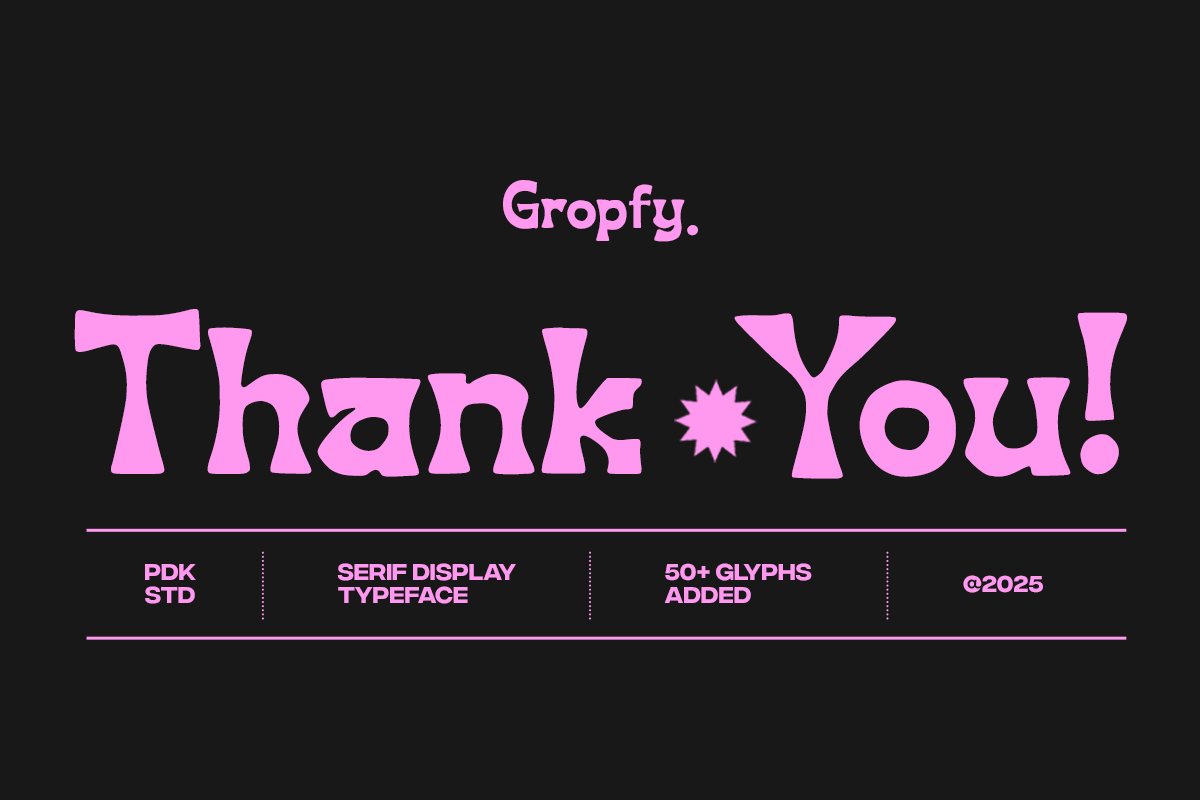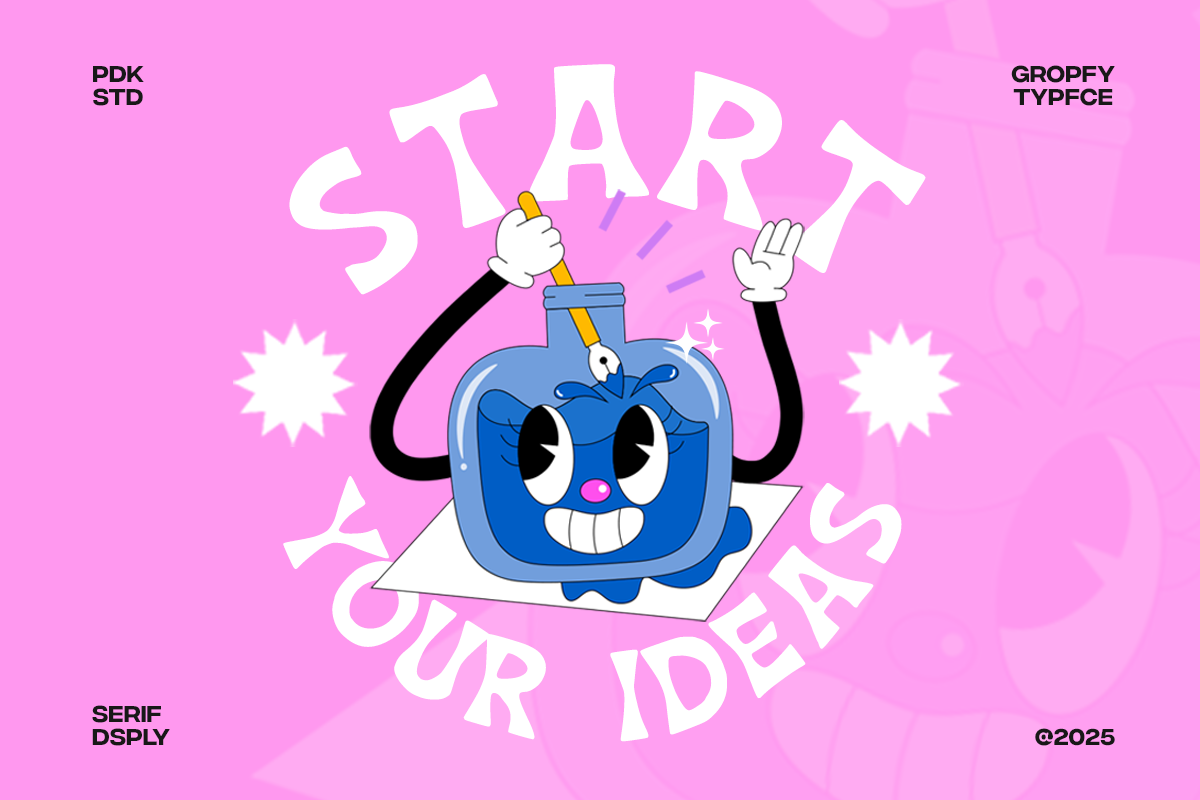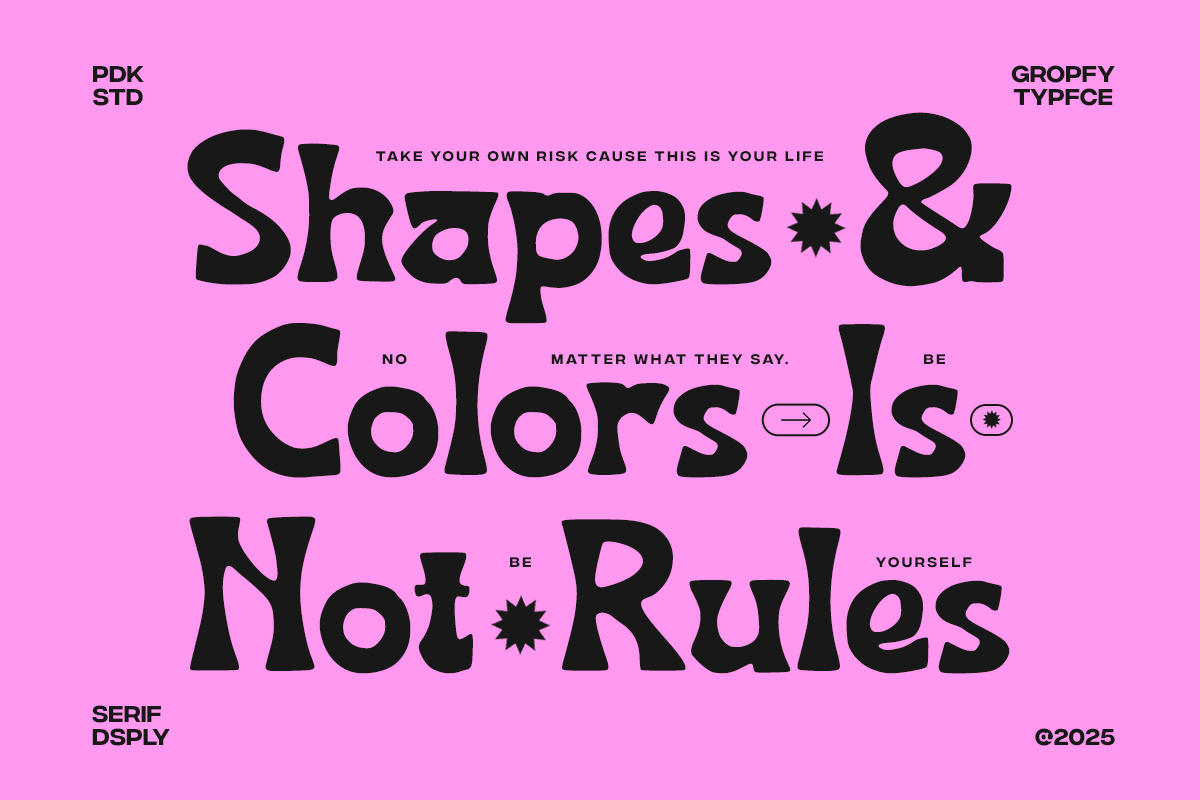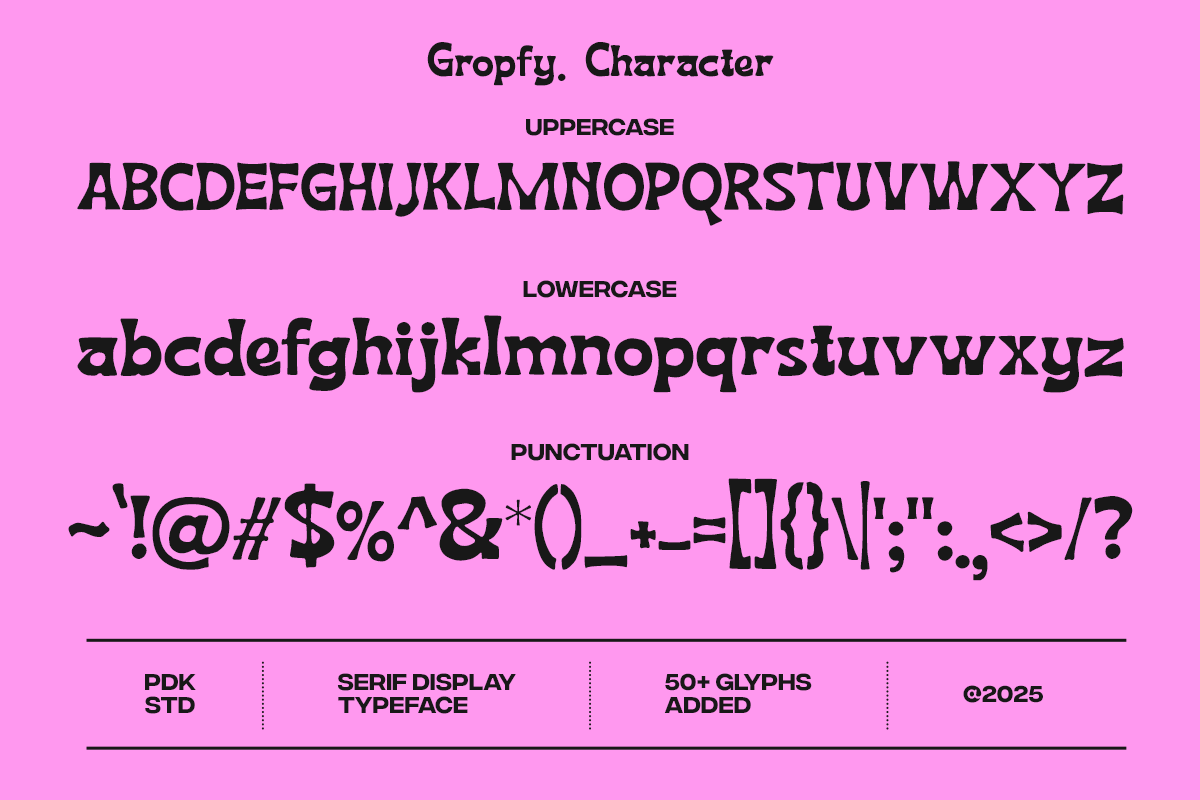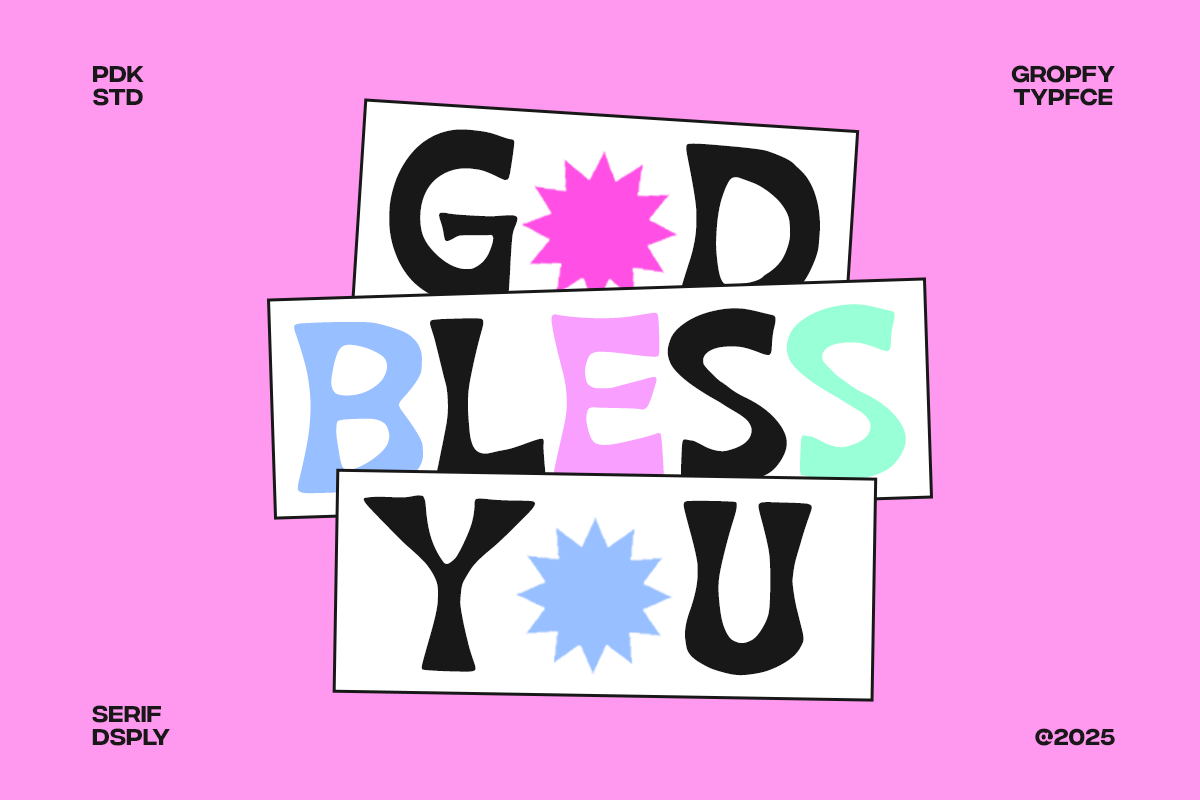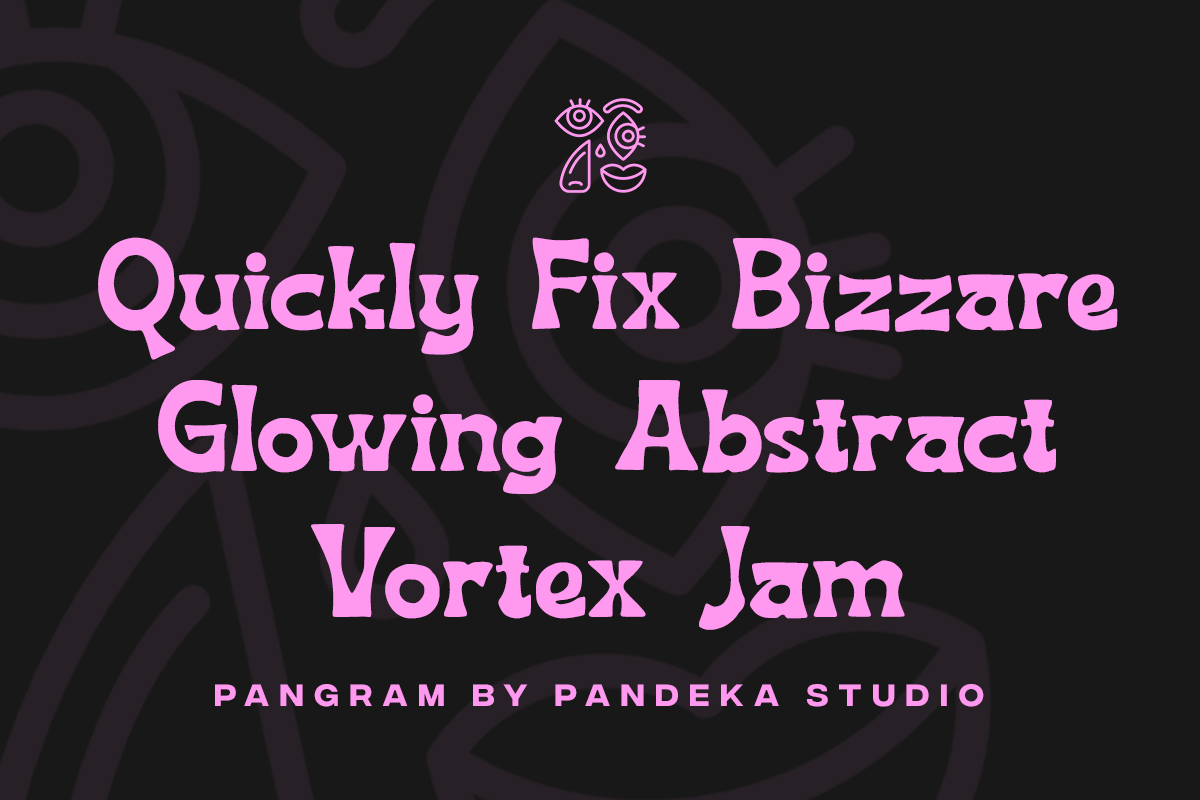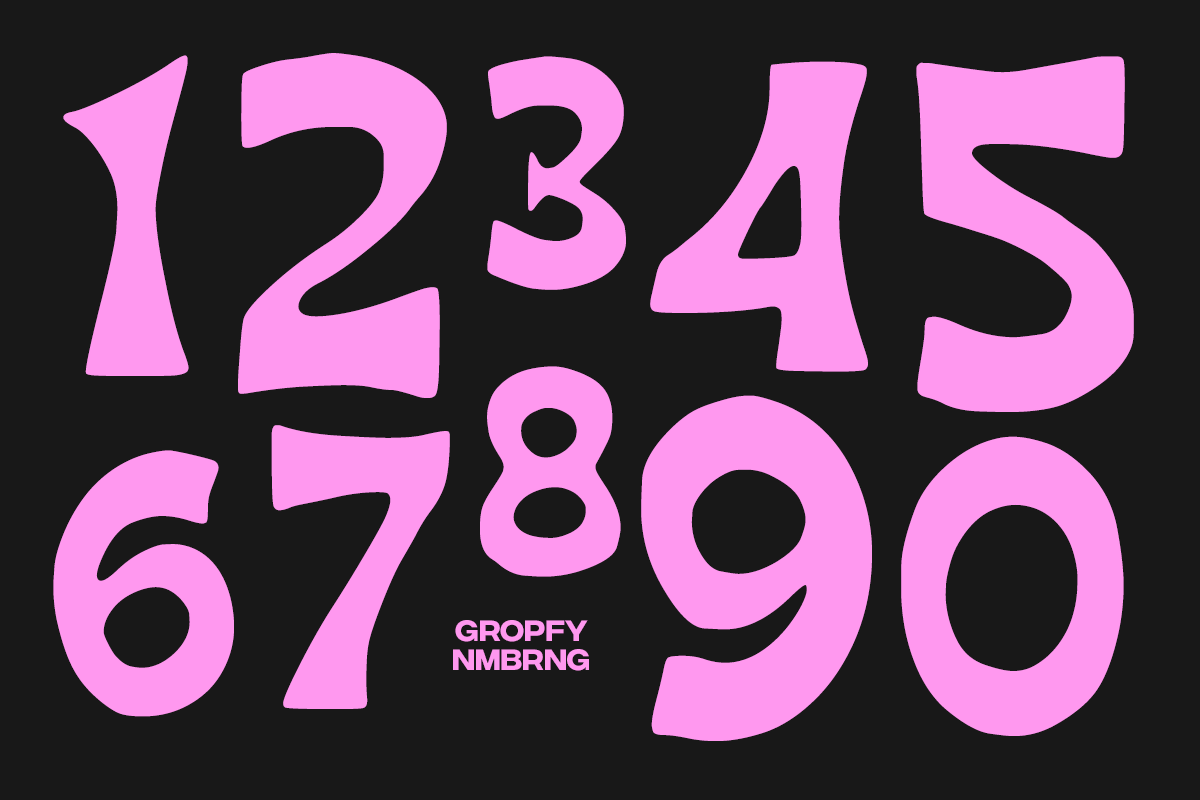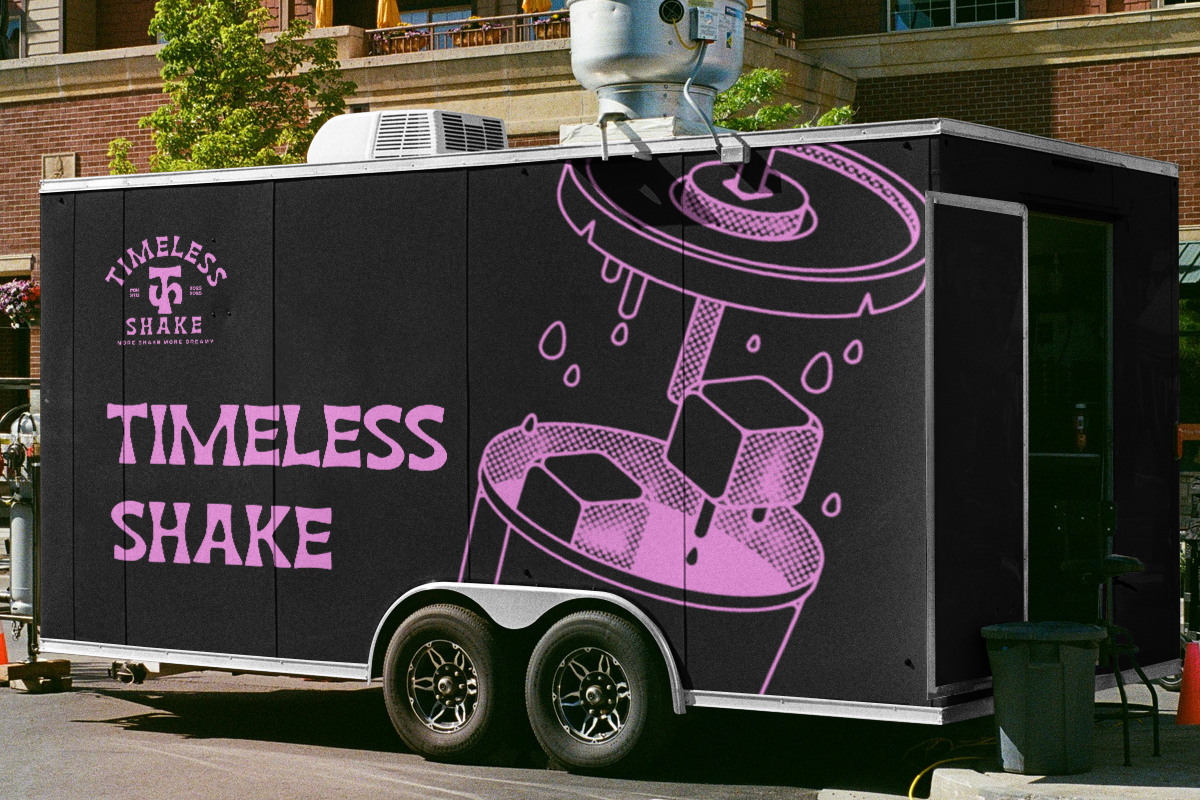
Gropfy - Playful Serif Display
Gropfy is a quirky and playful serif display font packed with personality. Designed to stand out, it combines expressive curves with a hand-drawn vibe, perfect for branding, posters, packaging, and creative editorial layouts. Gropfy includes uppercase, lowercase, numbers, symbols, and over 50 stylistic glyphs to supercharge any bold design concept.
- 1 Style: Regular
- Full Character Set: Uppercase, lowercase, numbers, symbols, and punctuation